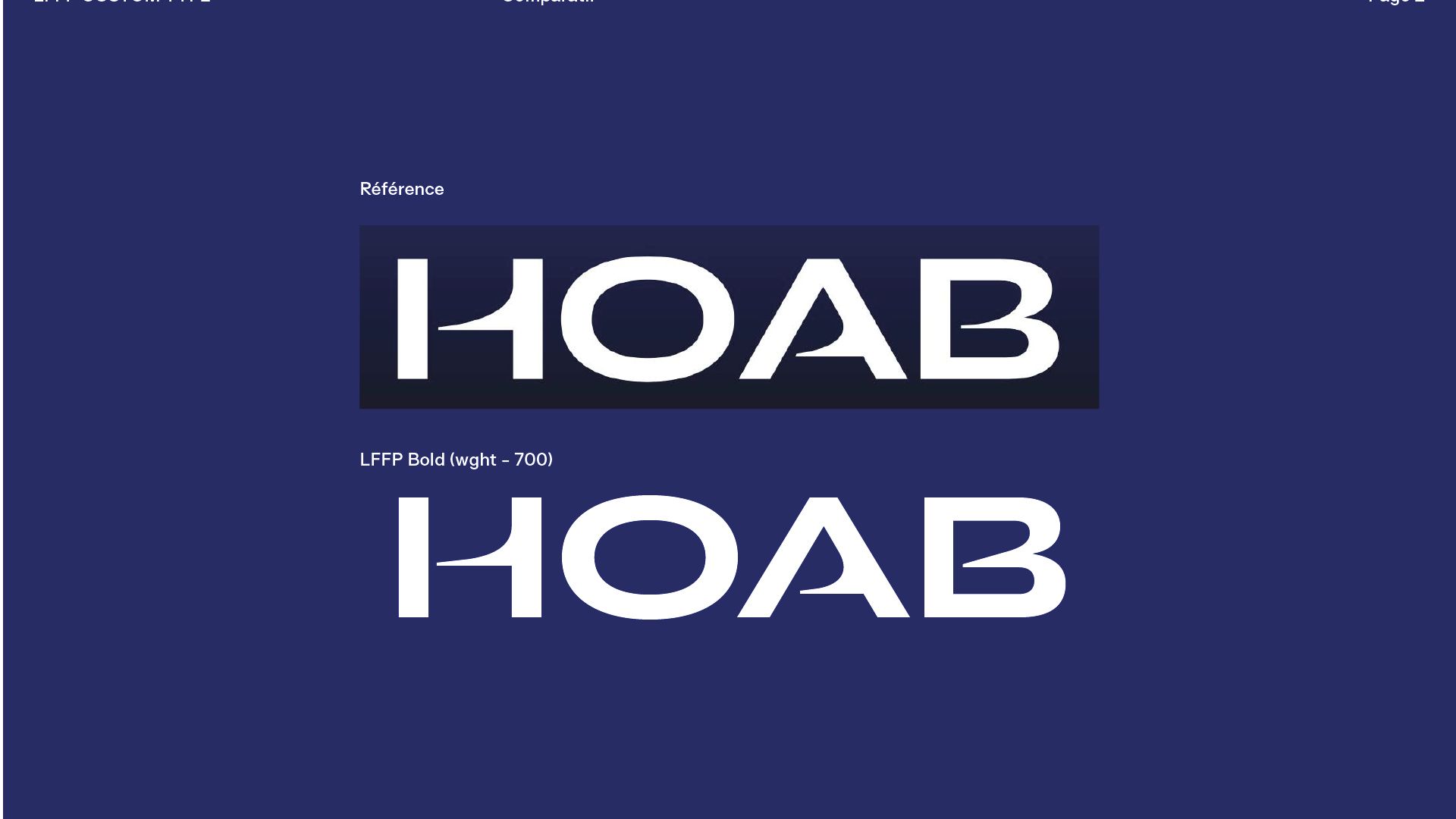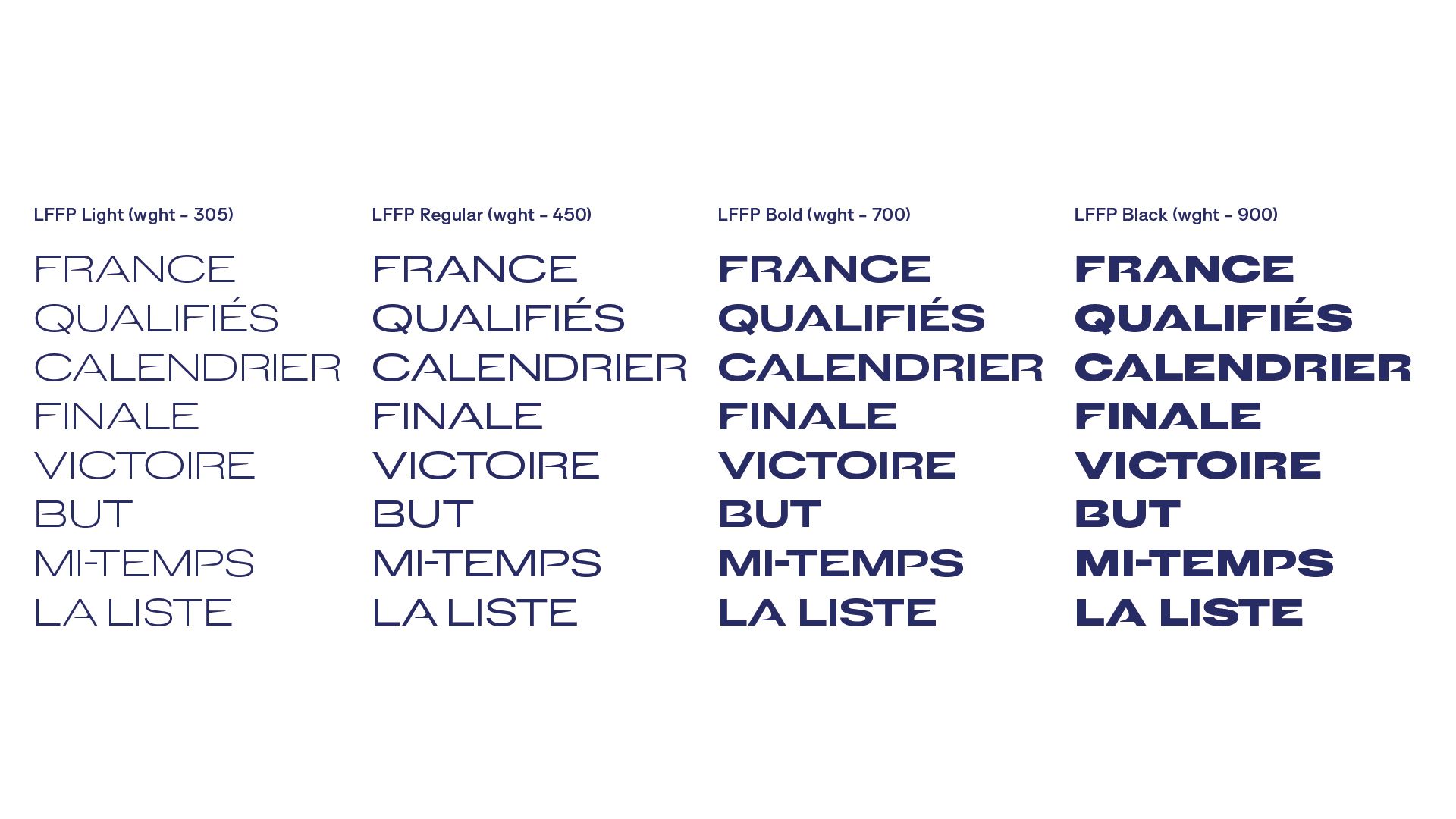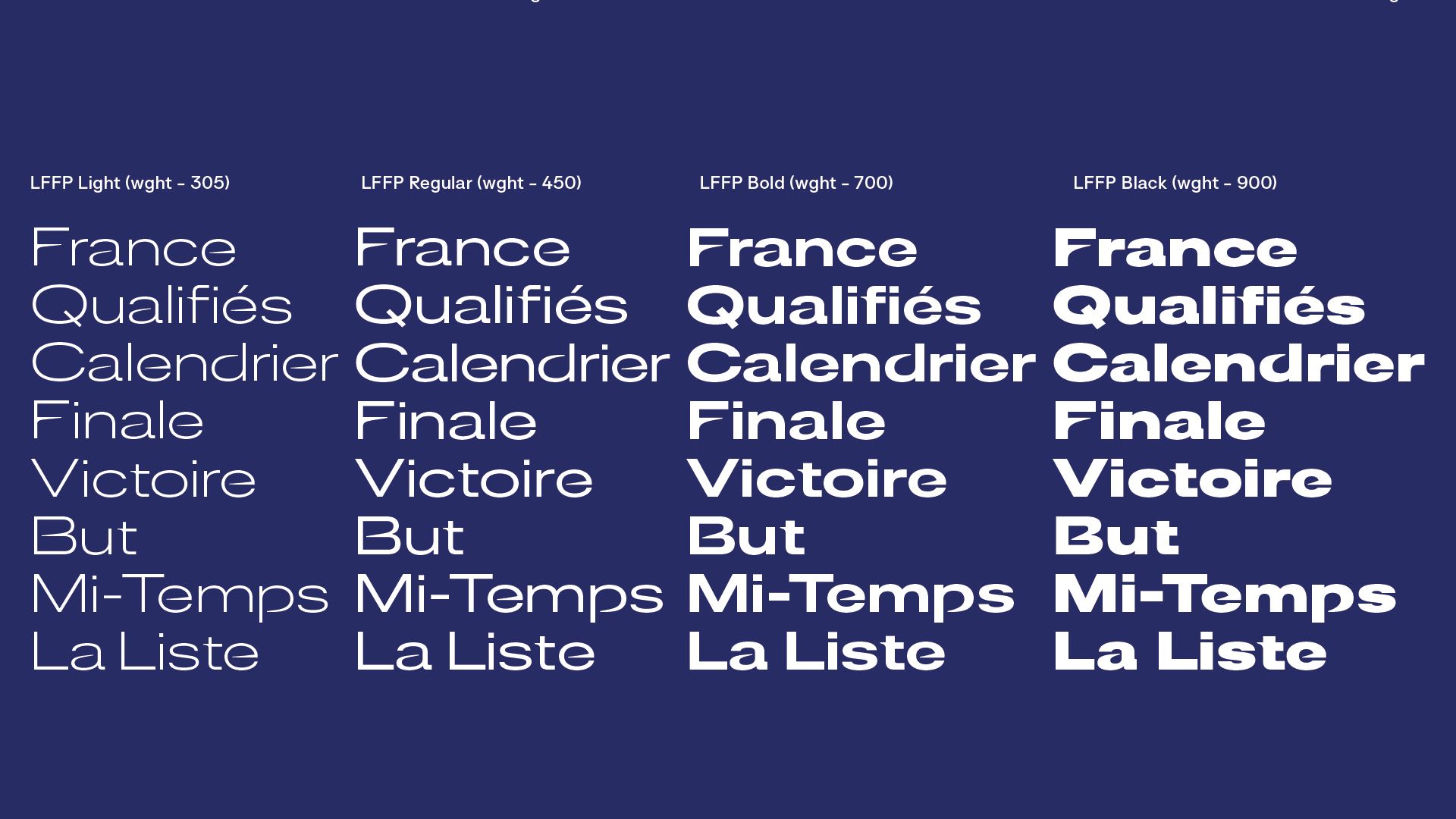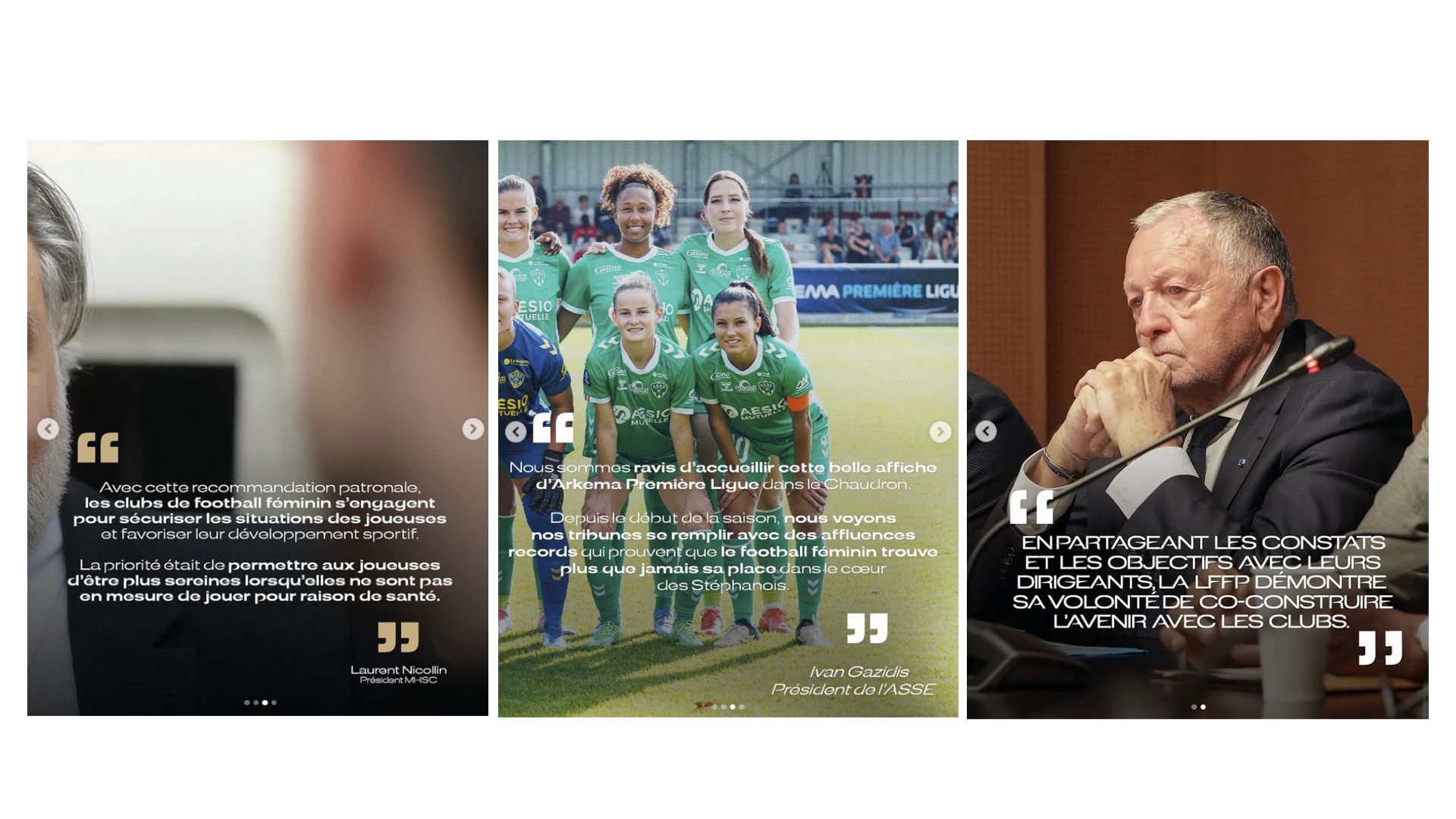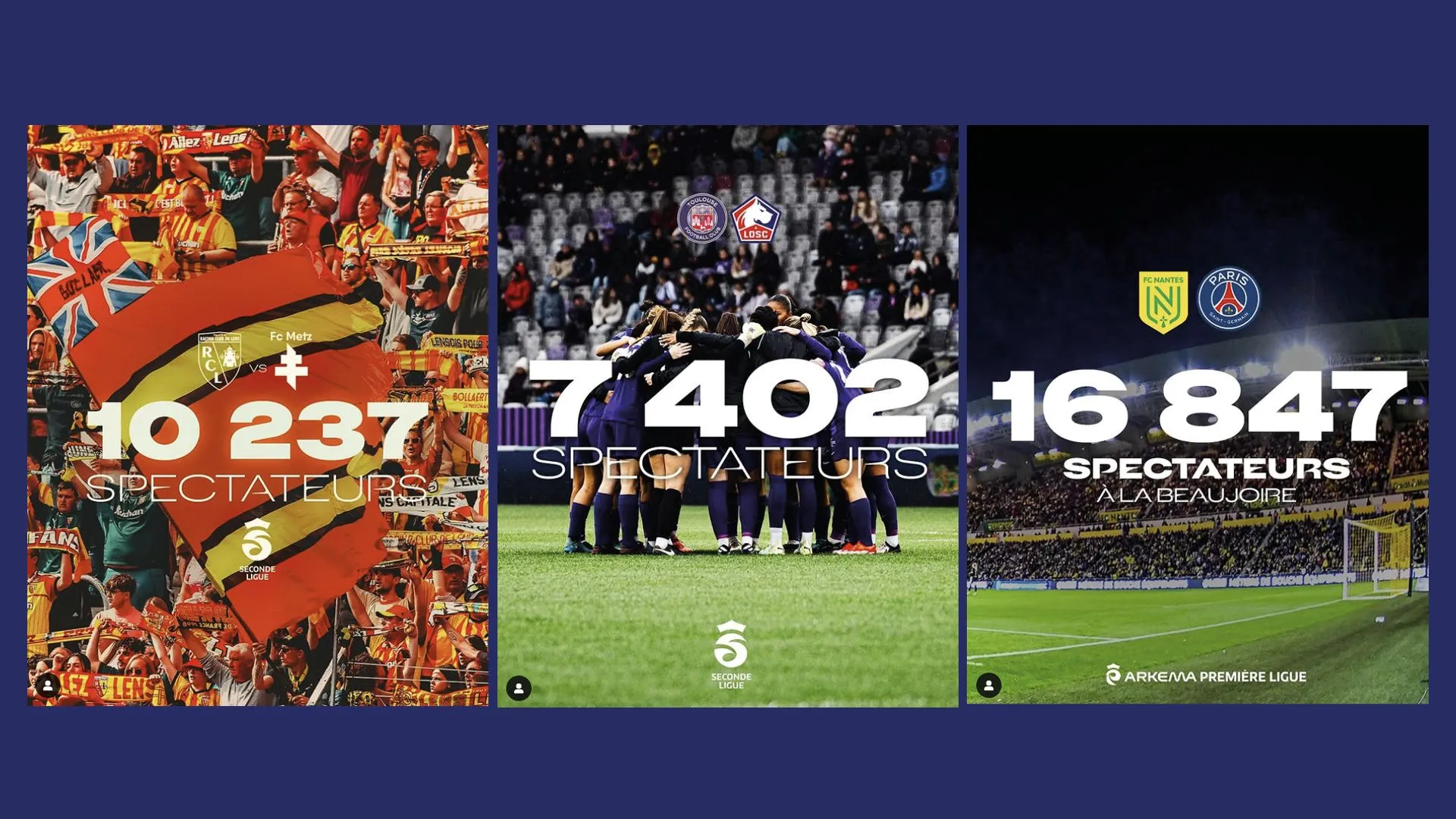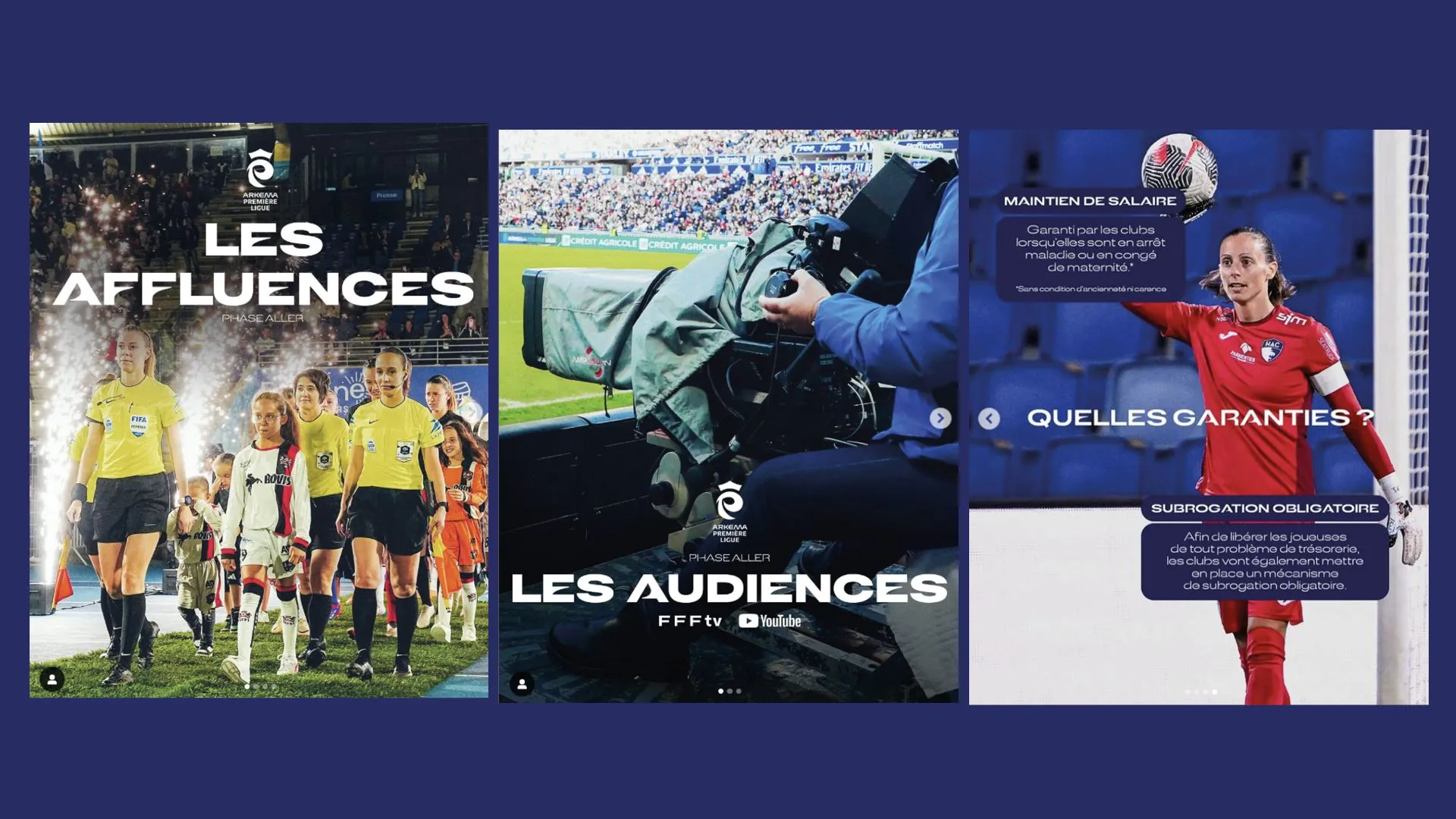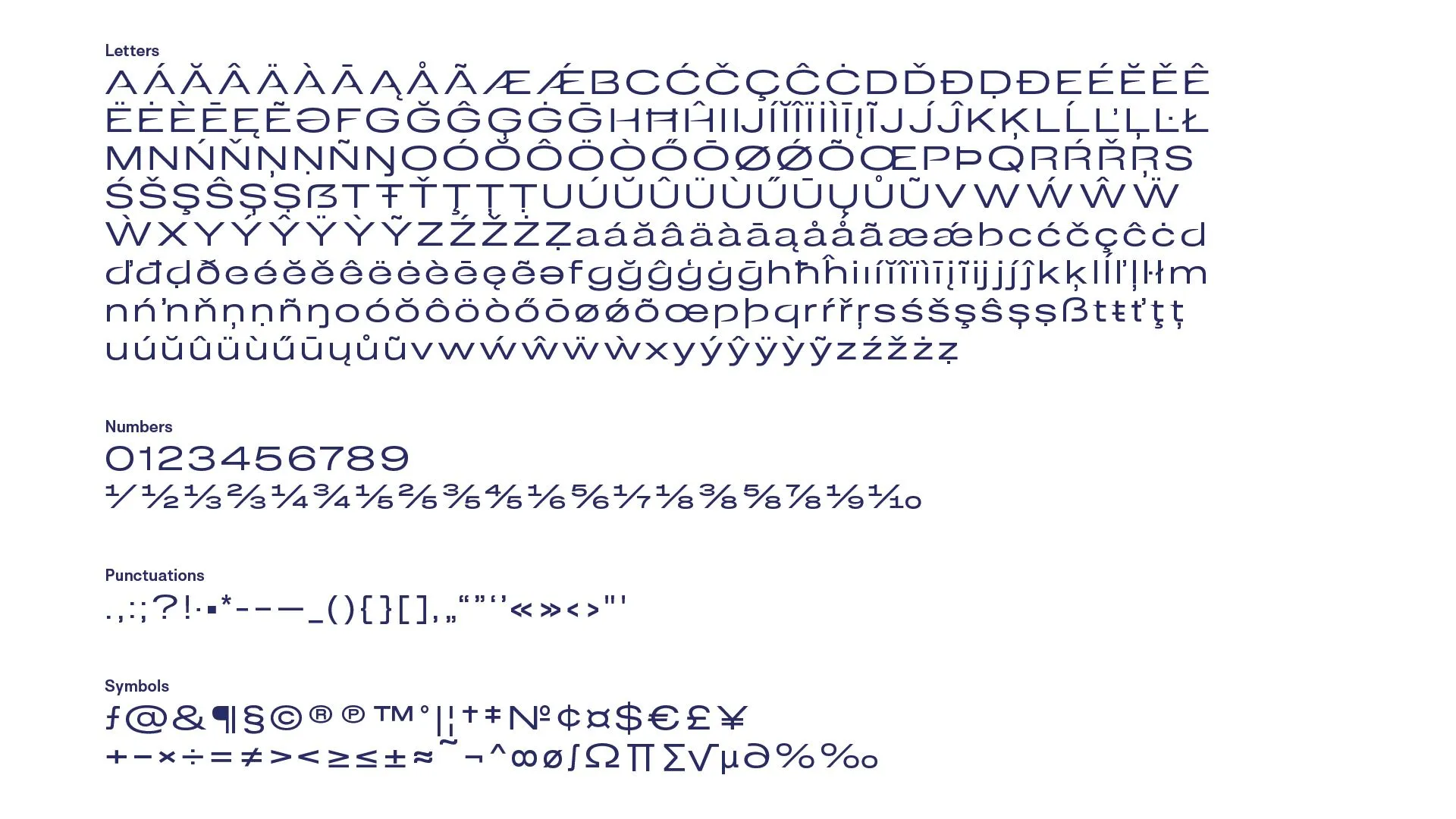
LFFP custom
The brief
The birth on July 1, 2024 of the Ligue Féminine de Football Professionnel (LFFP) marks a turning point in the history of French soccer, and illustrates an unprecedented dynamic in favor of women's football. Placed under the aegis of the FFF, the League, chaired by Jean-Michel Aulas, operates with its own organization.
In order to identify this new organization with strength and elegance, the League and its communications agency are committed to the creation of a customized branding identity capable of being applied to all printed and digital communication media, and enabling the communication of the three capital missions:
Influence: highlighting the success of clubs and the talent of players, and thus contributing to the performance of the French Women's Team, by inspiring new generations;
Leadership: embodying a discipline of excellence;
Entertainment: bringing women's soccer to life as a popular spectacle from the stands or in front of the screens.
The solution
The original logo with its cut-outs parts.
Blaze Type is already well acquainted with the sports sector, having signed the typefaces for Borussia Dortmund and Volleyball World.
The LFFP logo lays some interesting foundations with its use of cut-outs within the glyphs, referring as much to the brushstroke tracing the letter as to the cutting of ornamental stencils. In this graphic device, movement appears to reflect the dynamism of France's favorite sport.
Wishing to anchor the identity in a relatively neutral modernism, the agency opted for the Rules foundation, a neo-grotesk sans-serif to which these cut-outs are applied.
An initial test was carried out by the agency on the basis of four capitals with significant shapes: H, O, A and B. The Blaze Type team then corrected this proposal to unify the crosspieces, reduce their points and avoid excessively pronounced curves. Although this is a minor step for the customer and his supplier, it is essential in order to guarantee good legibility in small sizes, as well as good development on subsequent weights.
The first step was to practice some optical correction on this set of basic capitals.
As much as capital letters incorporate tapering middle bars, a simple, dynamic graphic device, lowercase letters require more subtle, consistent work. With the exception of o, the whole alphabet adapts its counterforms to open up freely: a, b, d, e, g, p and q take on a slight spiciness and an interesting lightness, giving the whole a quasi-stencil status.
The glyphset for extended latin alphabet. The numerals were designed for helping designing the sports documents.
Although the main need is for Bold, Blaze Type is committed to providing a richly extended family, from Light to Black. Thus, an extended glyphset is deployed on all capitals, lower-case letters, diacritics covering extended Latin, punctuation and various common symbols. Particular attention is paid to numbers and fractions corresponding to the various championship stages. Once these two extreme weights have been completed, their interpolation generates the set of intermediate weights, Regular and Bold.
4 weights in all caps, for titling.
While today's communications use mainly capitals and Bold, the deployment of this typeface in a wide range of weights on commercial texts allows us to broaden our identity to include typographic games that reflect the richness and variety of this discipline.
Lower cases are mostly used for body copies, on social media and corporate publications.
In the space of around three months, and after natural and restricted exchanges, 4 weights for a total of 1,652 glyphs were developed.
Some instagram publications, with a strong use of numerals, capitals and sometime lowercases.